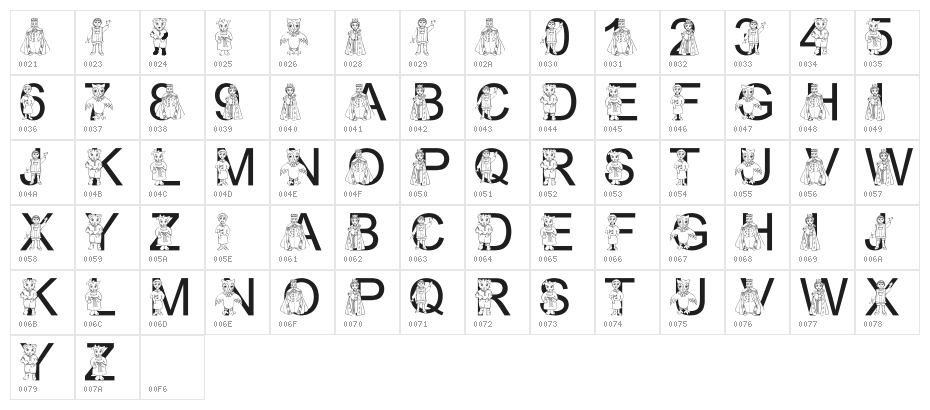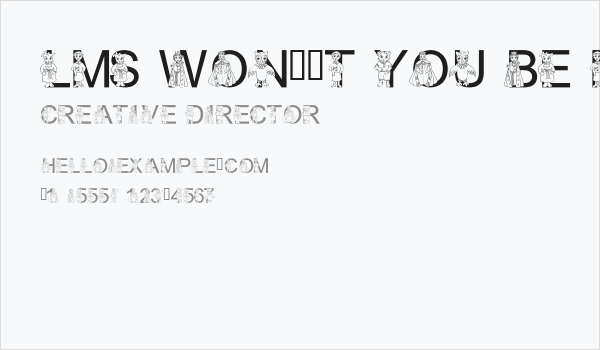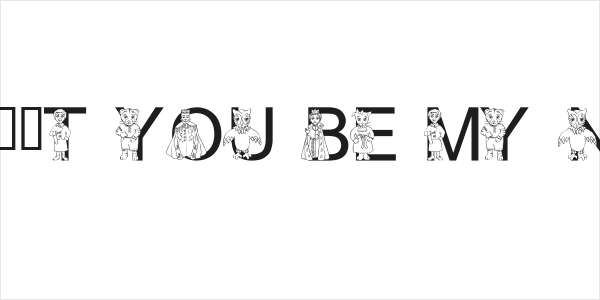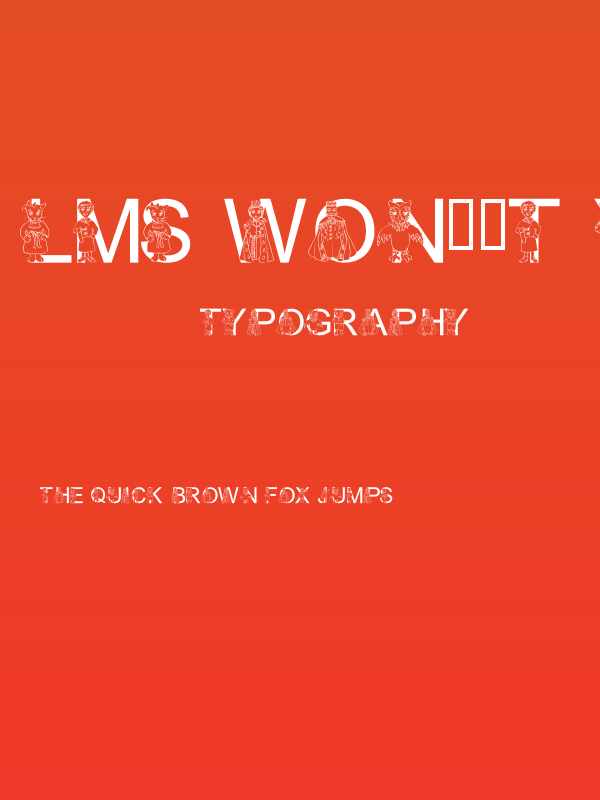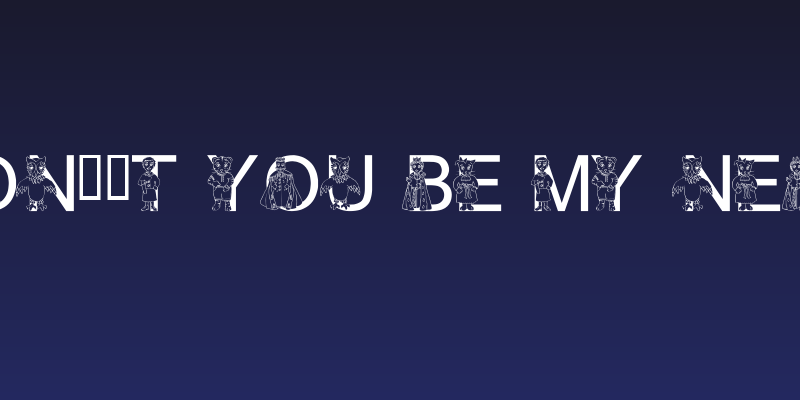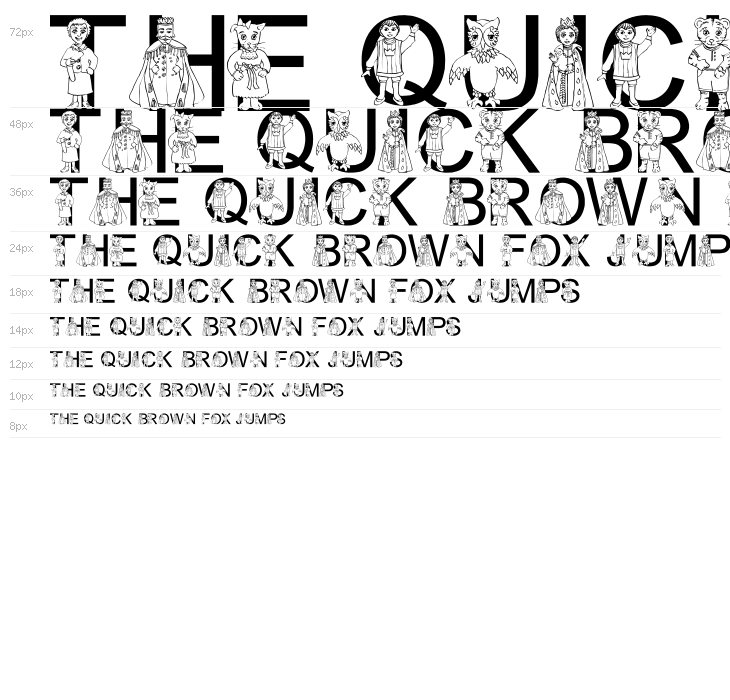
LMS Won't You Be My Neighbor Font
LMS Won't You Be My Neighbor Description
This playful and whimsical font features characters from a beloved children's show integrated into each letter and number. The design combines bold, sans-serif letters with detailed illustrations of familiar characters, creating a unique and nostalgic aesthetic. Each character is carefully placed to complement the letterform, adding a layer of storytelling and charm. The font maintains a consistent style across all characters, making it visually cohesive and engaging. The use of black and white enhances the contrast and ensures readability while allowing the illustrations to stand out. This font is perfect for projects that aim to evoke a sense of nostalgia and warmth, appealing to both children and adults who grew up with these characters.
| Overall Style | Whimsical |
| Use Case | Headlines, Logos, Children's materials |
| Proposed Projects | Ideal for children's books, educational materials, themed party invitations, and nostalgic merchandise. |